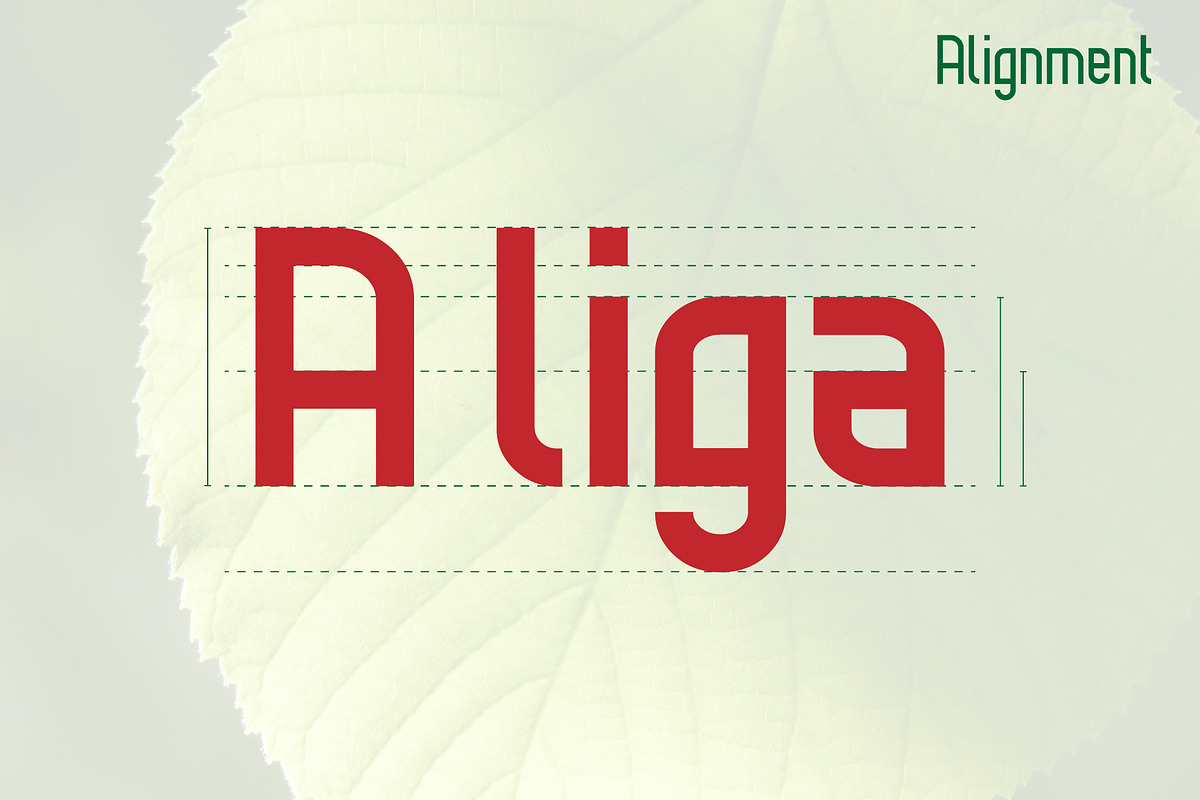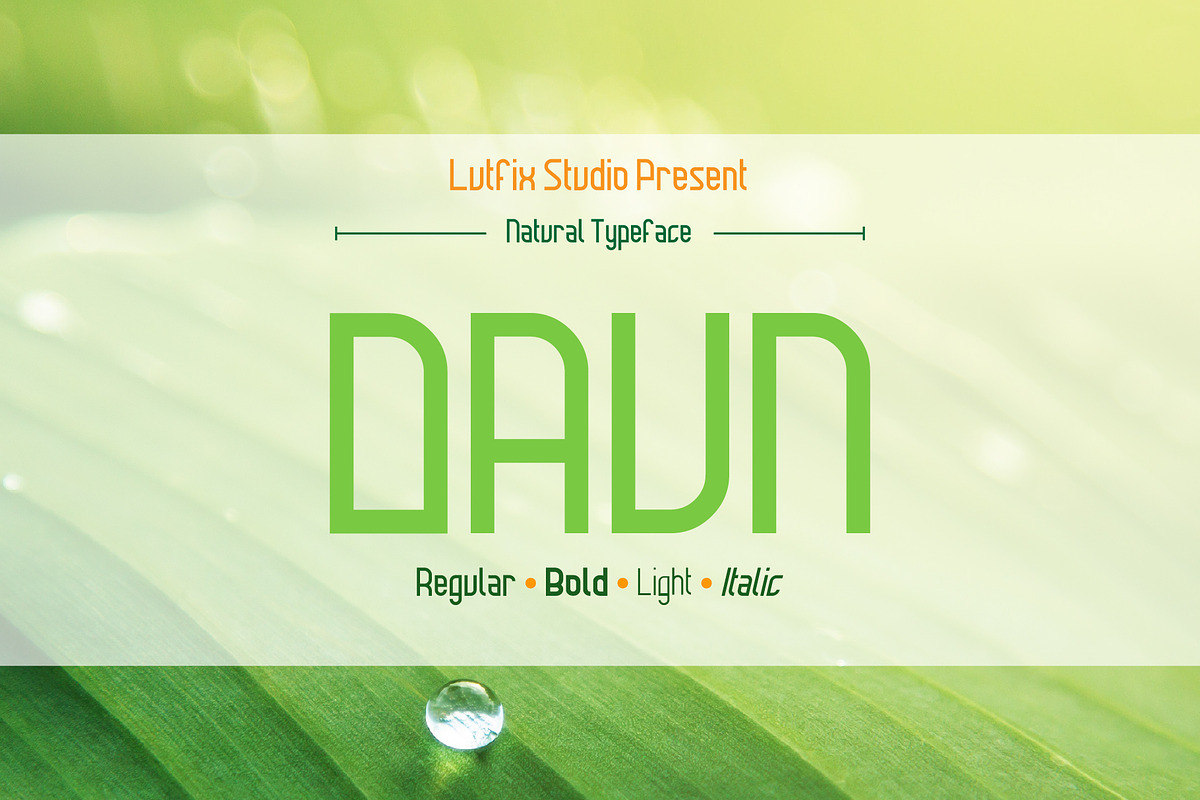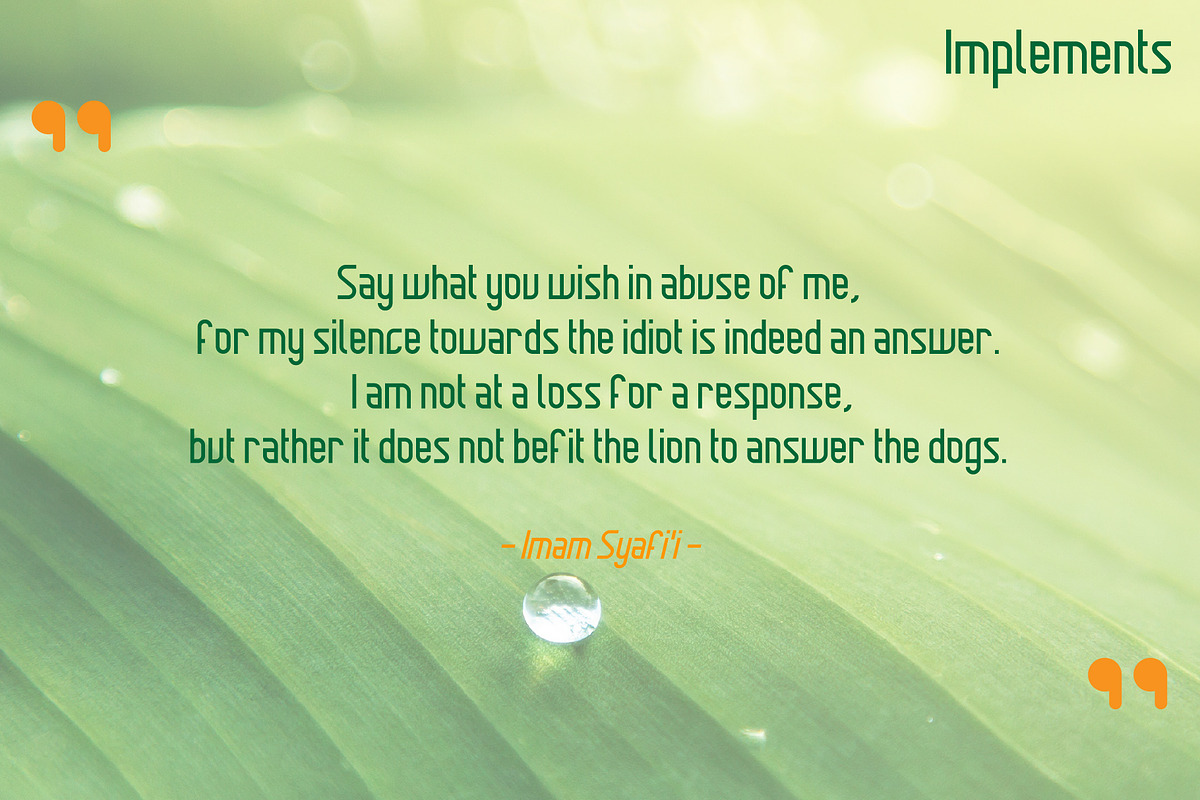
Daun - a Natural Sans Serif
Daun is an amazing font family. It comes in six unique weights which can be combined perfectly to create a playful design.
Create an unique logo, poster, presentation, and much more with this perfect family.